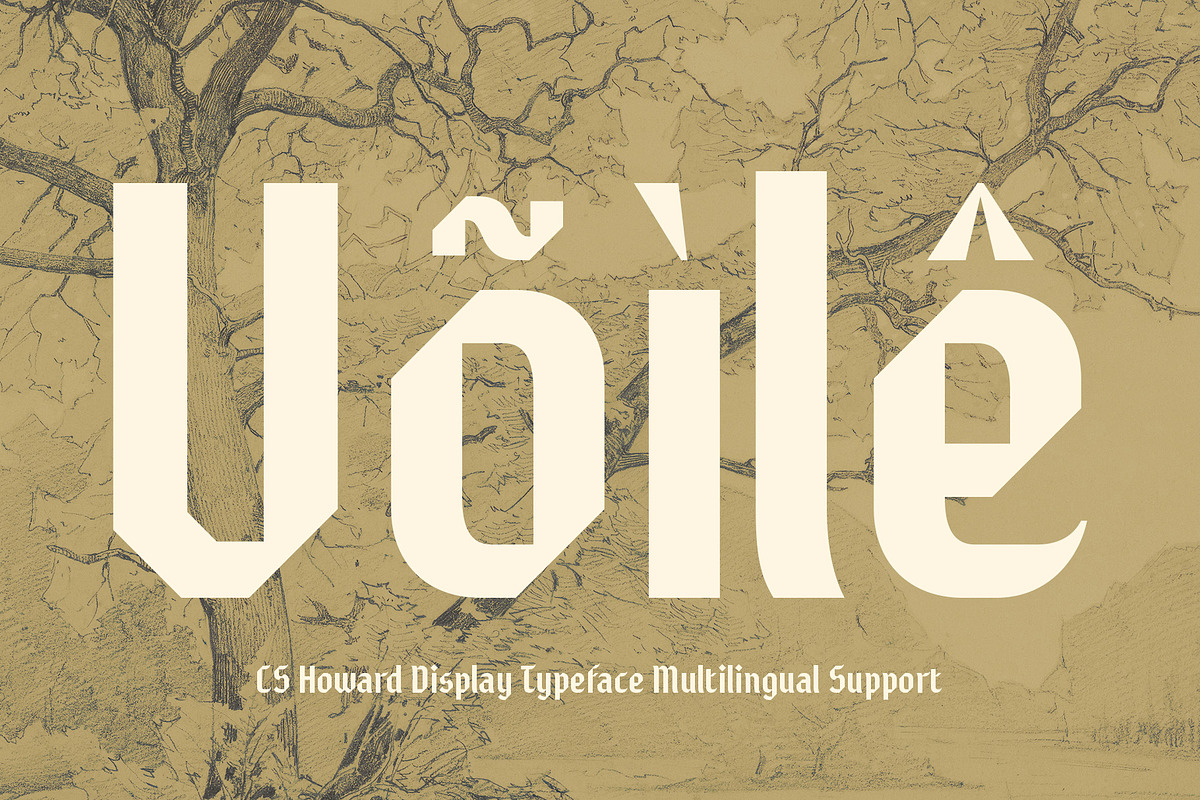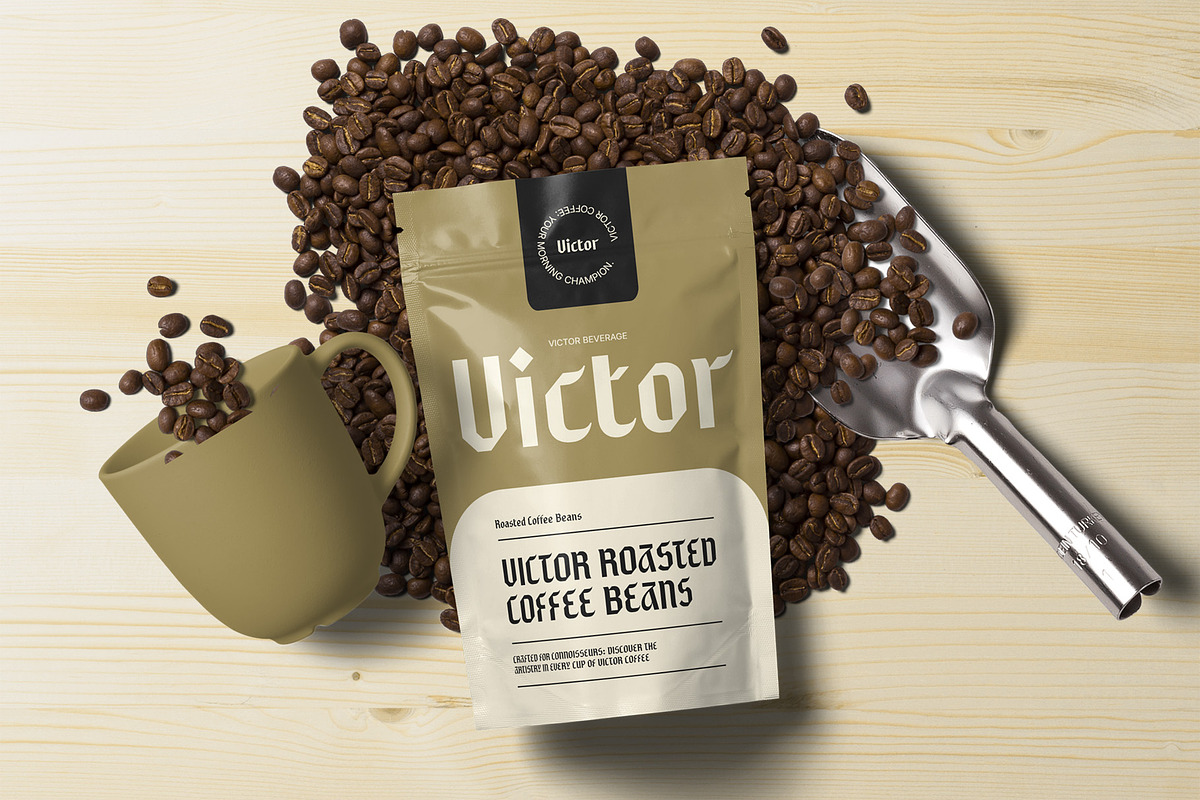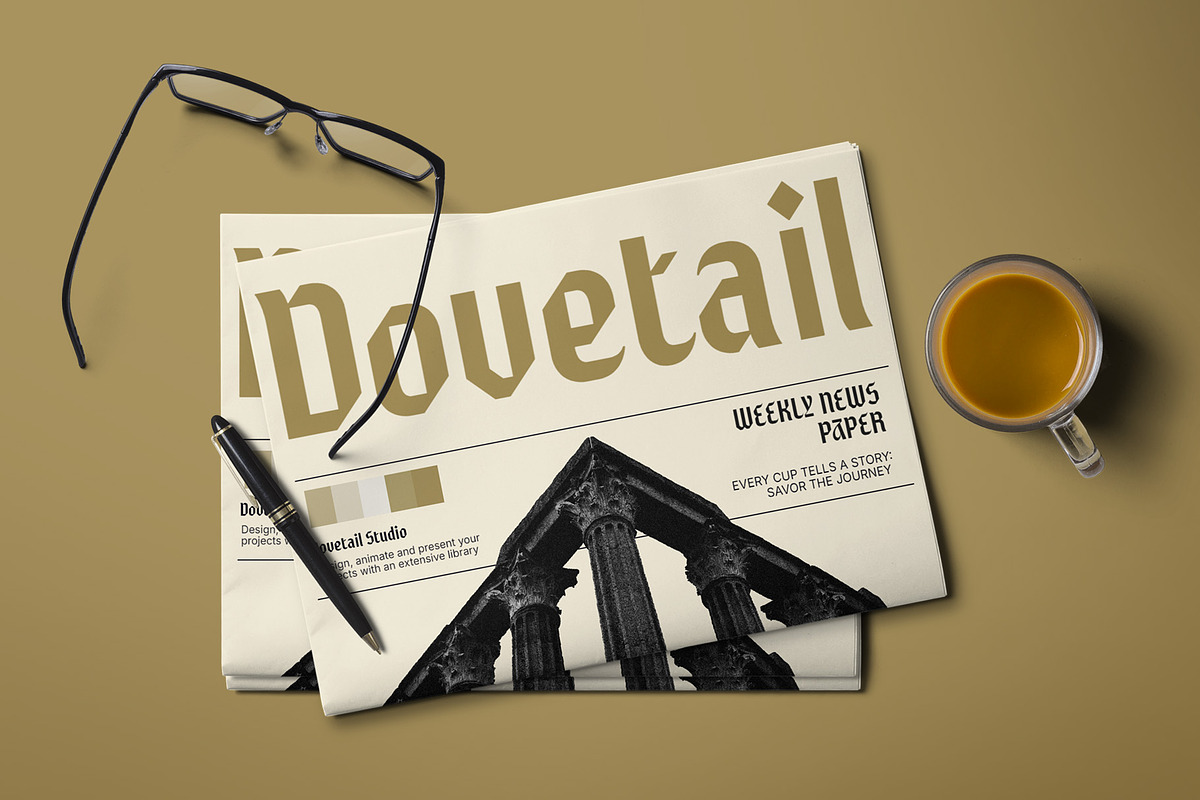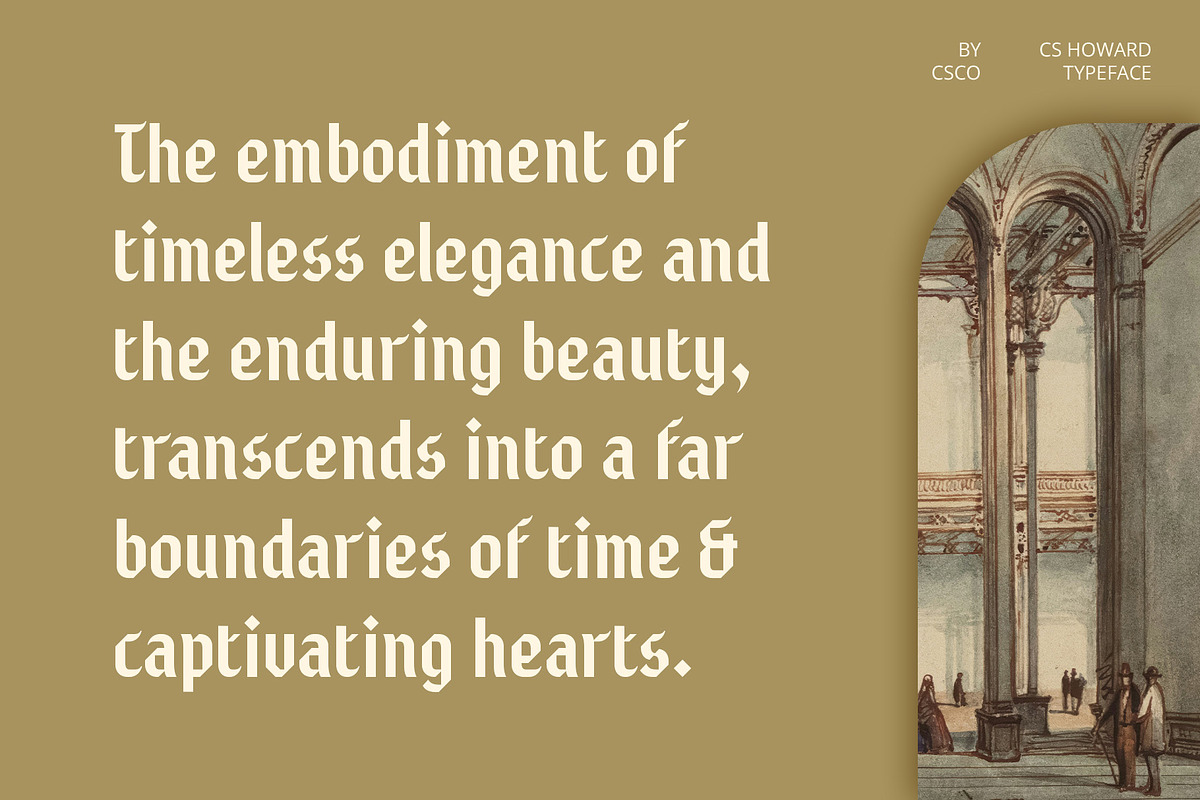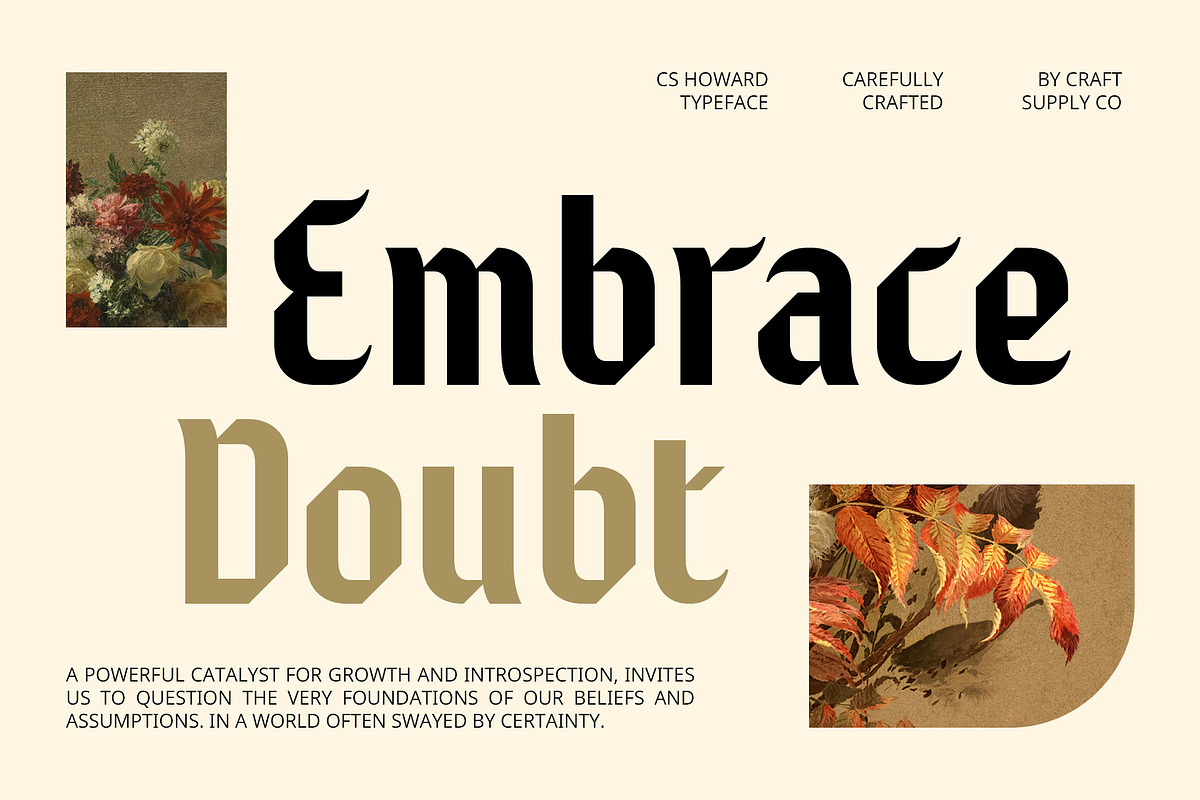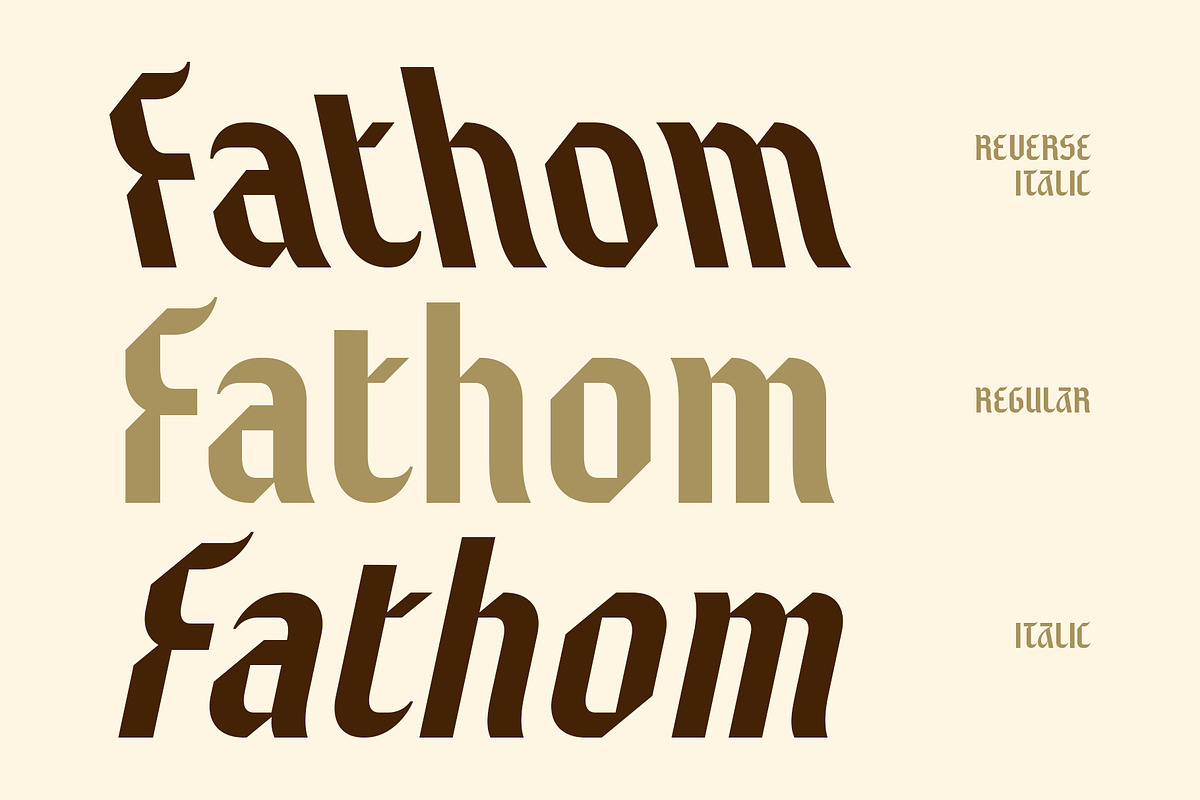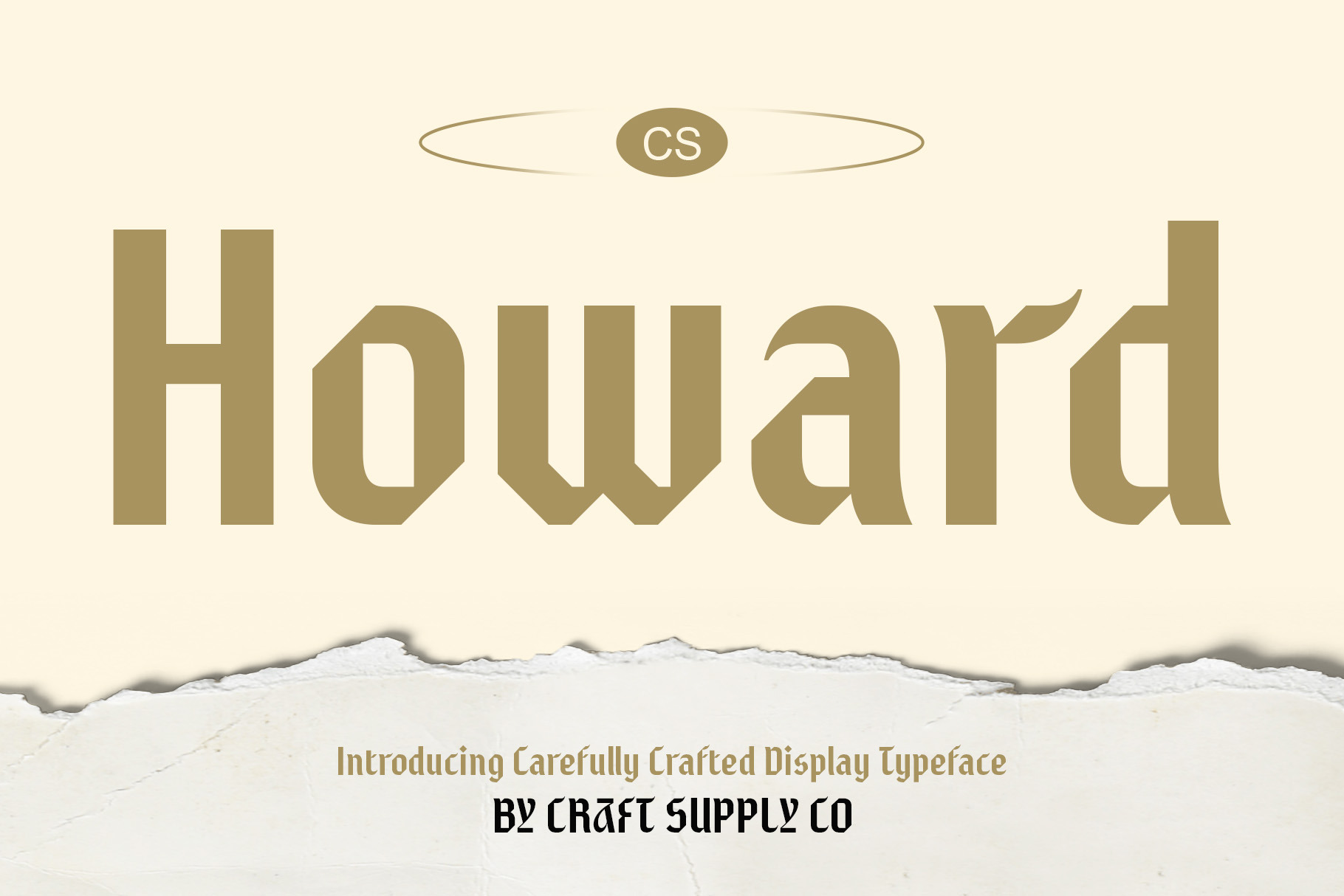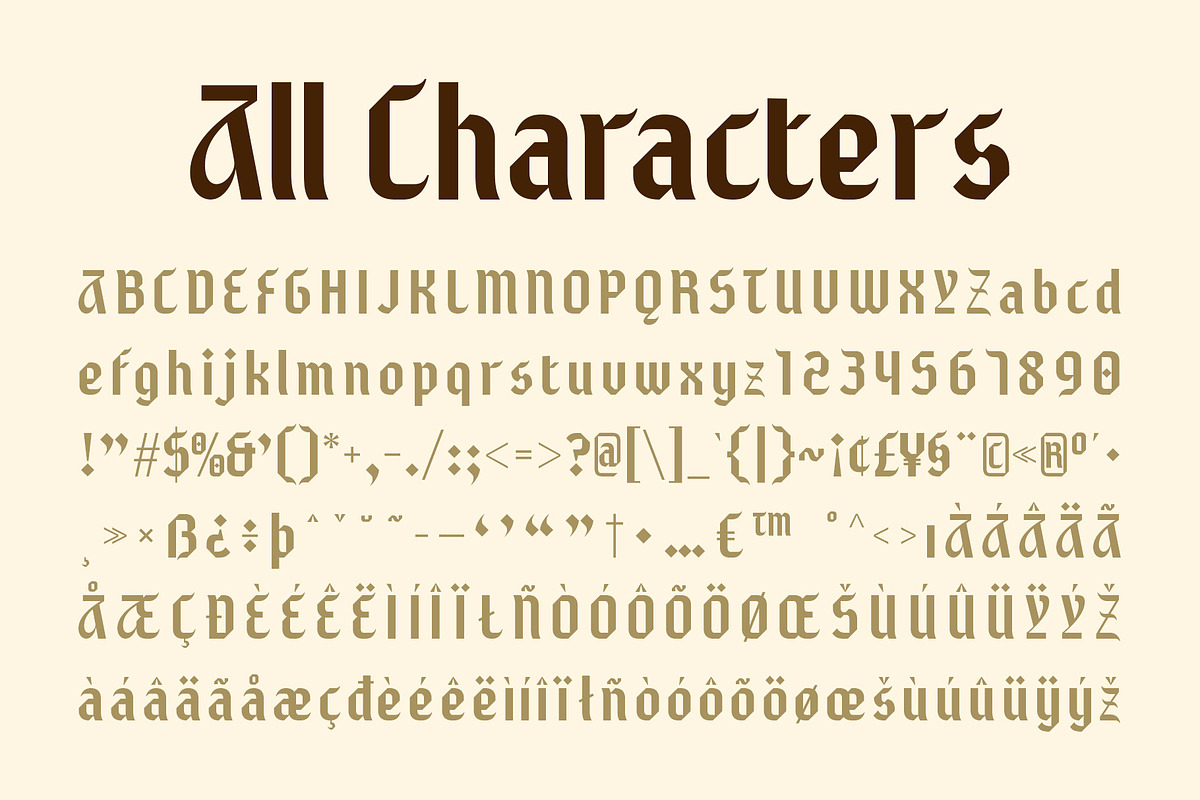
CS Howard – Gothic Font
CS Howard – Gothic Font: A Bold and Dramatic Statement
Sharp, Angular Lines with Bold Impact CS Howard is a Gothic display sans serif font that combines sharp, angular lines with bold modern aesthetics. Its striking design draws inspiration from traditional Gothic typography while embracing contemporary boldness, making it ideal for designs that demand attention. The sharp, dramatic angles create a sense of strength and power, perfect for projects aiming to evoke an intense, edgy atmosphere.
High Contrast for Dramatic Flair This font stands out with its high contrast between thick and thin strokes, adding visual tension and a sense of dynamic movement. The bold, structured appearance ensures that CS Howard captures attention even at larger sizes, making it ideal for impactful headlines, posters, and other display applications. The high contrast gives the font a timeless Gothic charm while making it feel fresh and modern.
Perfect for Bold and Edgy Designs CS Howard is the ideal choice for projects that need to convey a strong, dramatic impression. Whether used in editorial layouts, music posters, event branding, or other designs that require a bold, edgy atmosphere, this font offers a distinct visual style that exudes confidence. Its strong and commanding presence adds a sense of grandeur and sophistication to any design project.